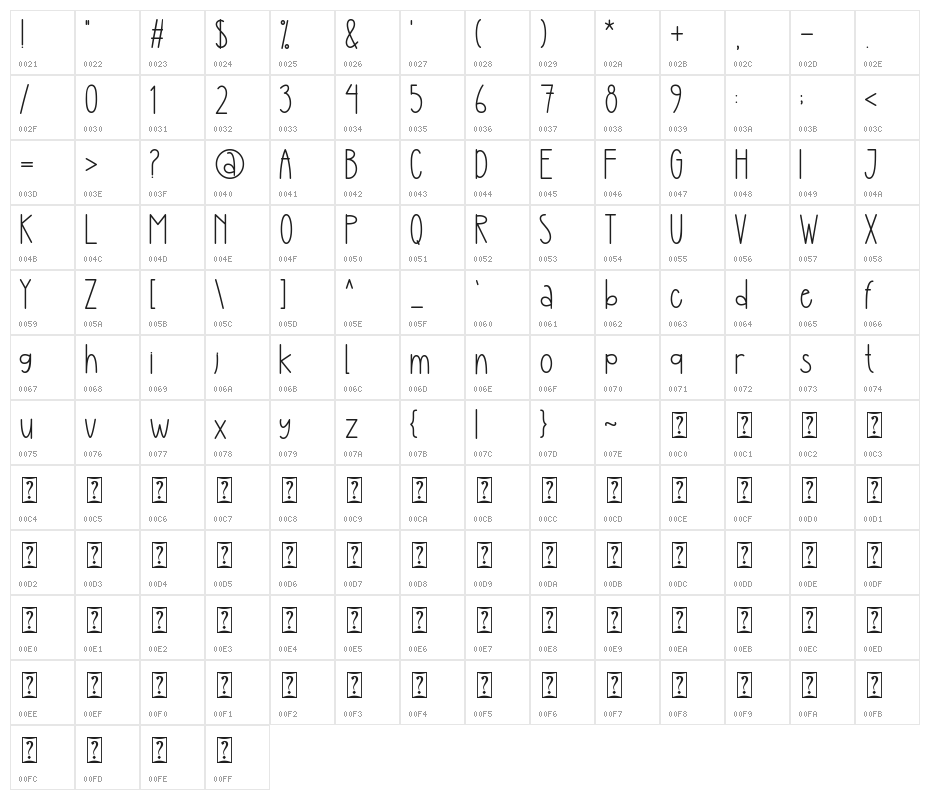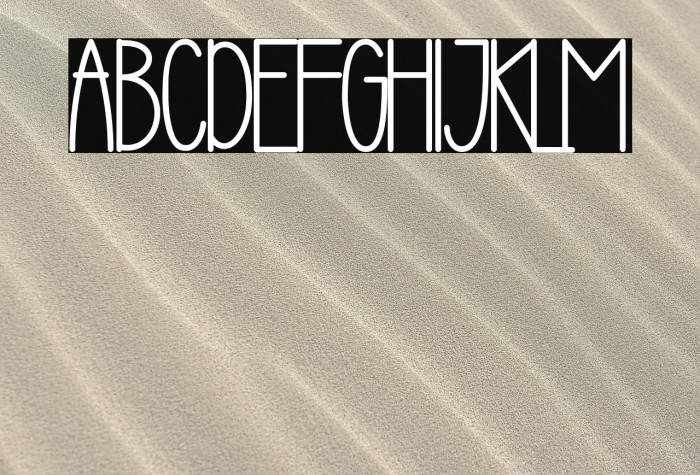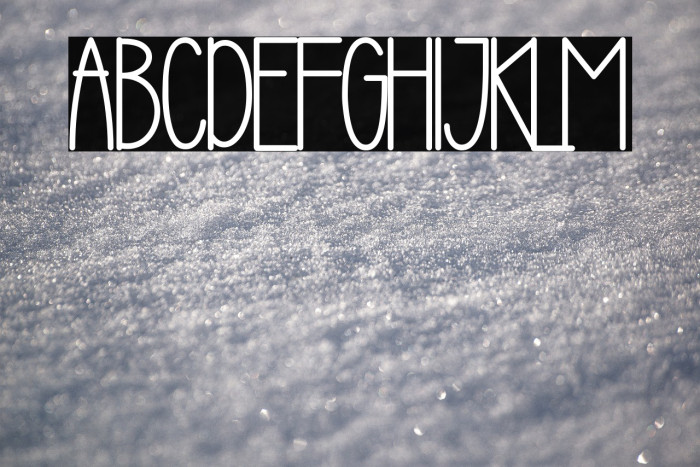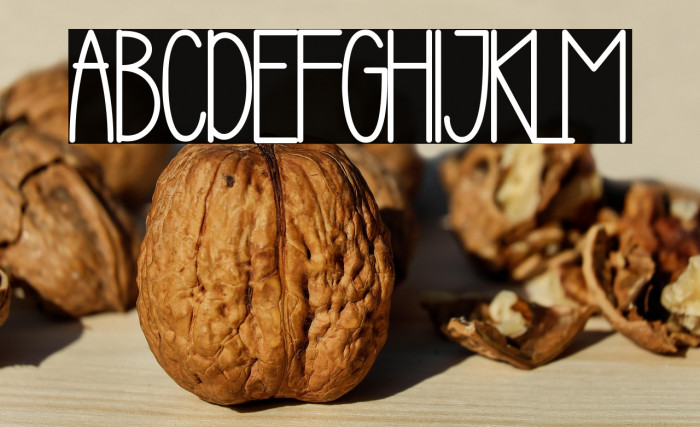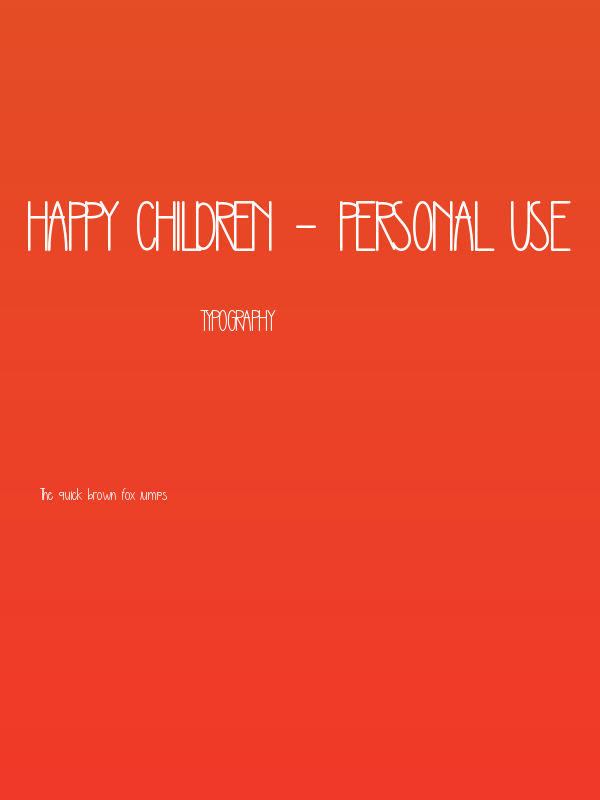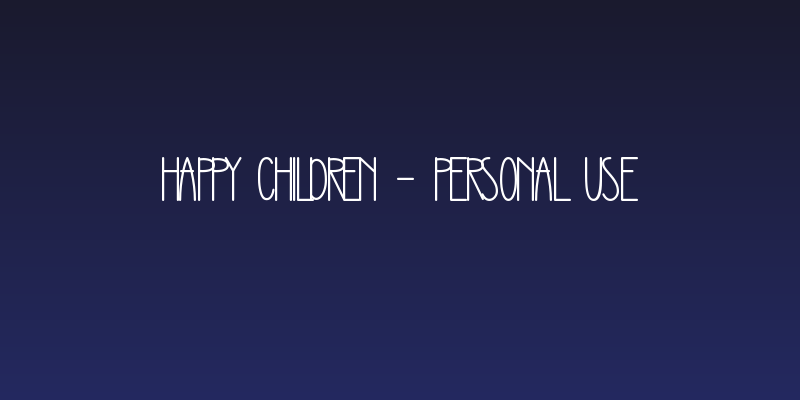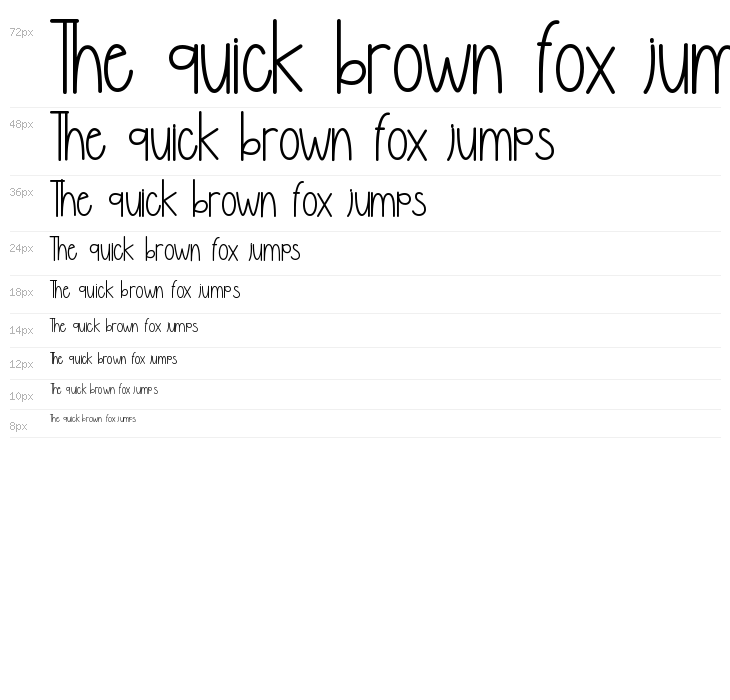
Happy Children - Personal Use Font
Happy Children - Personal Use Description
This playful and whimsical font features tall, narrow letters with a hand-drawn aesthetic. The characters are slightly irregular, adding a charming and informal feel. The uppercase letters are consistently tall, while the lowercase letters maintain a similar height, creating a cohesive look. The numbers and special characters follow the same playful style, making the font versatile for various creative projects. The strokes are consistent in thickness, providing a clean and modern appearance. This font is ideal for designs that require a friendly and approachable vibe, such as children's books, playful branding, or casual invitations.
Overall StylePlayful, Whimsical
Use CaseHeadlines, Logos, Informal Text
Proposed ProjectsChildren's books, playful branding, casual invitations, greeting cards, educational materials.